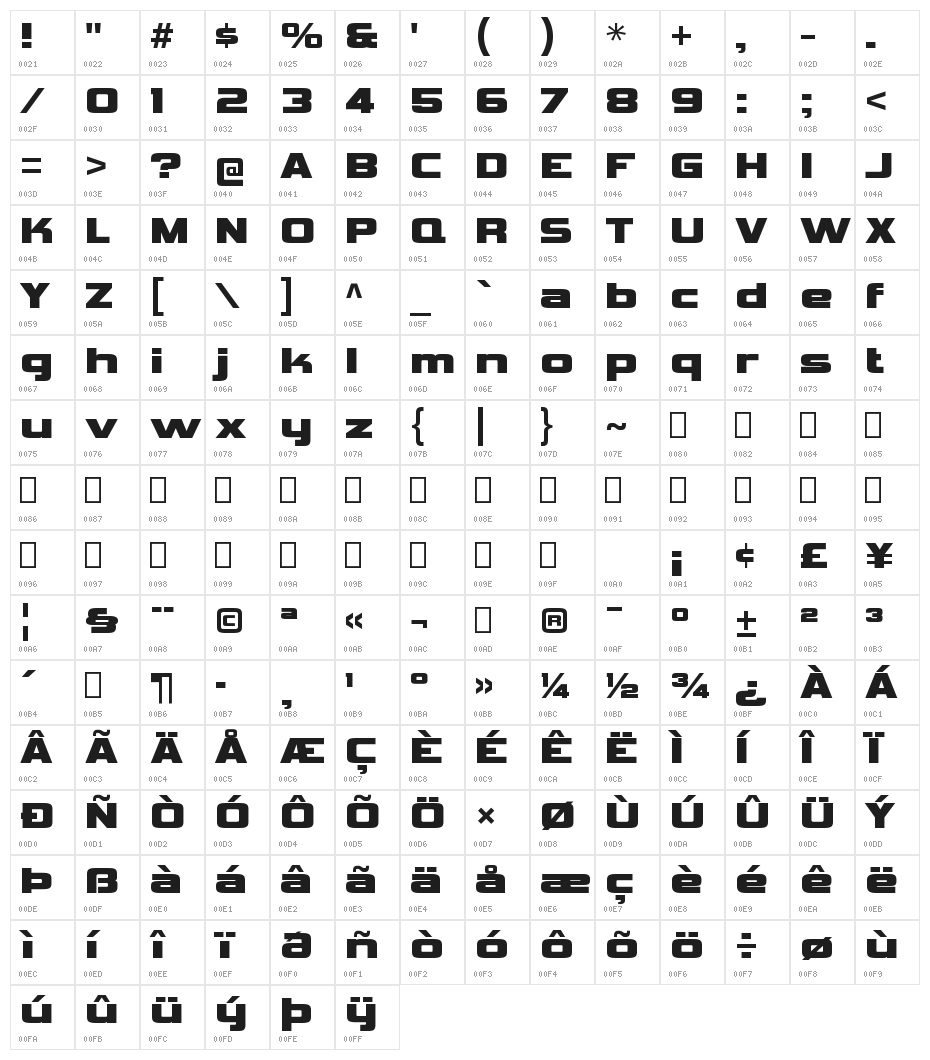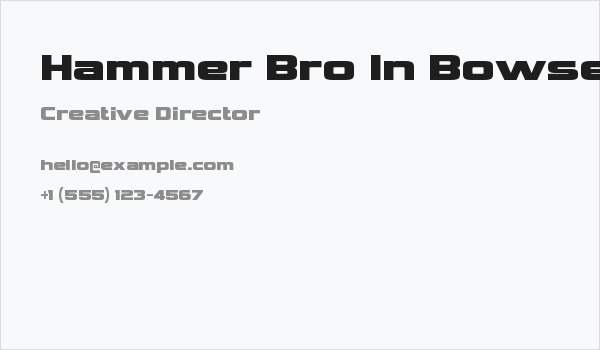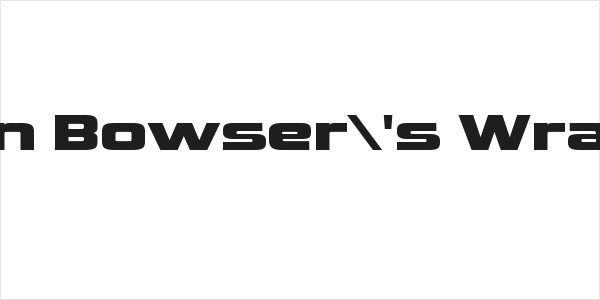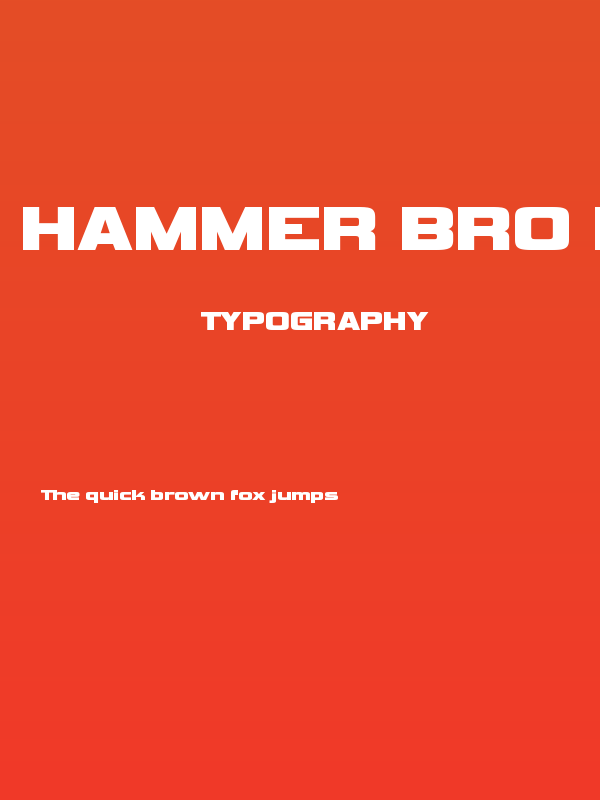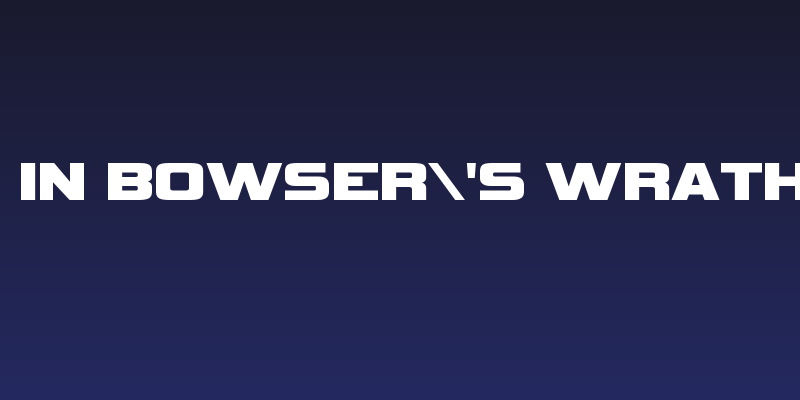
Hammer Bro In Bowser's Wrath E3 Regular Font
Hammer Bro In Bowser's Wrath E3 Regular Description
This font features a bold and assertive design with strong geometric shapes and a modern aesthetic. The uppercase letters are particularly striking, with a blocky and robust appearance that conveys strength and stability. The lowercase letters maintain the same boldness, ensuring consistency across text. The numerals are equally bold, making them stand out for impactful displays. Special characters are designed to match the overall style, ensuring a cohesive look. The font's thick strokes and minimal contrast make it ideal for attention-grabbing headlines and titles.
| Proposed Projects | Ideal for branding, logos, posters, and any project requiring a strong visual impact. |